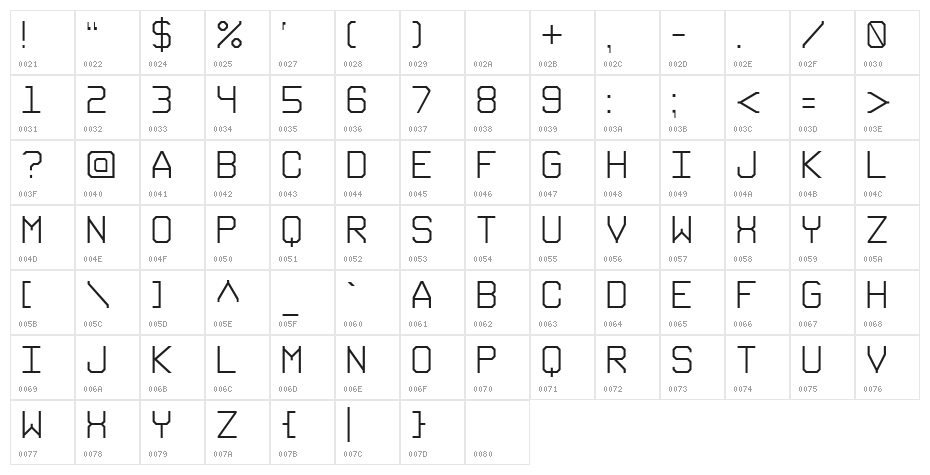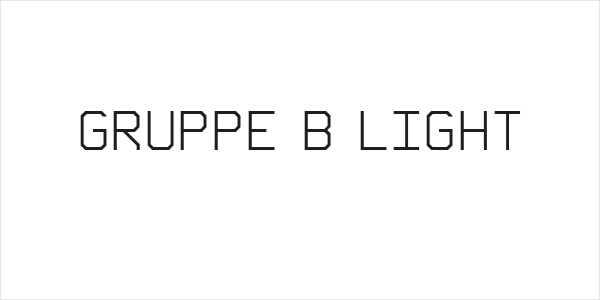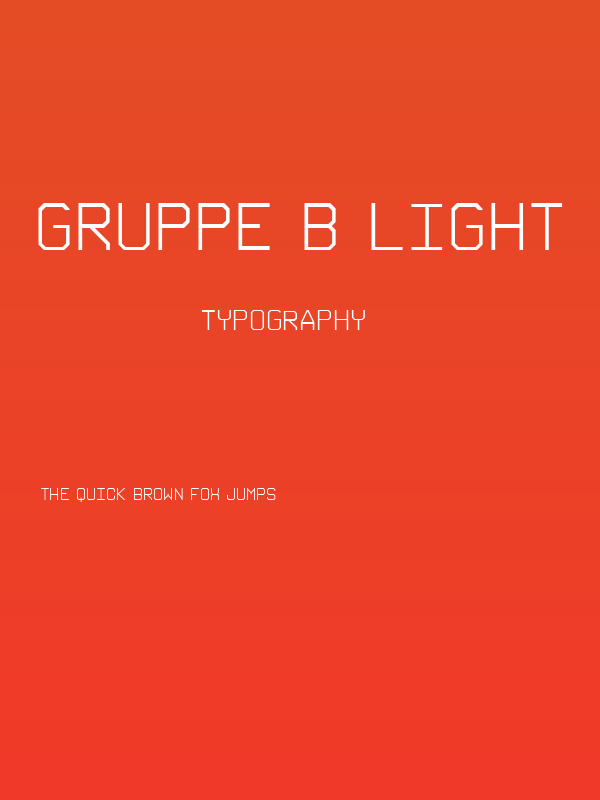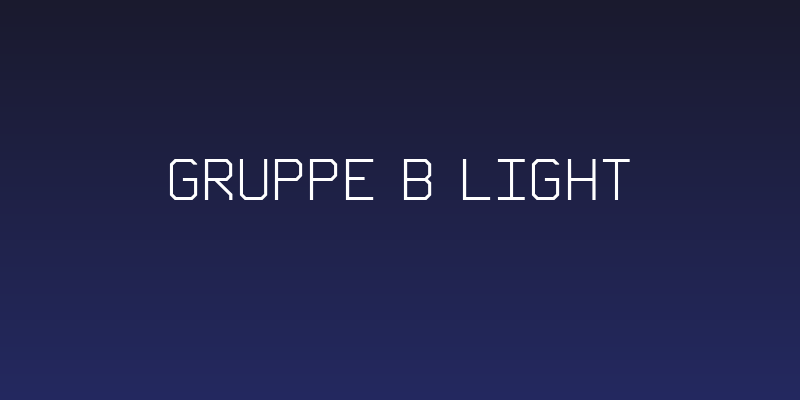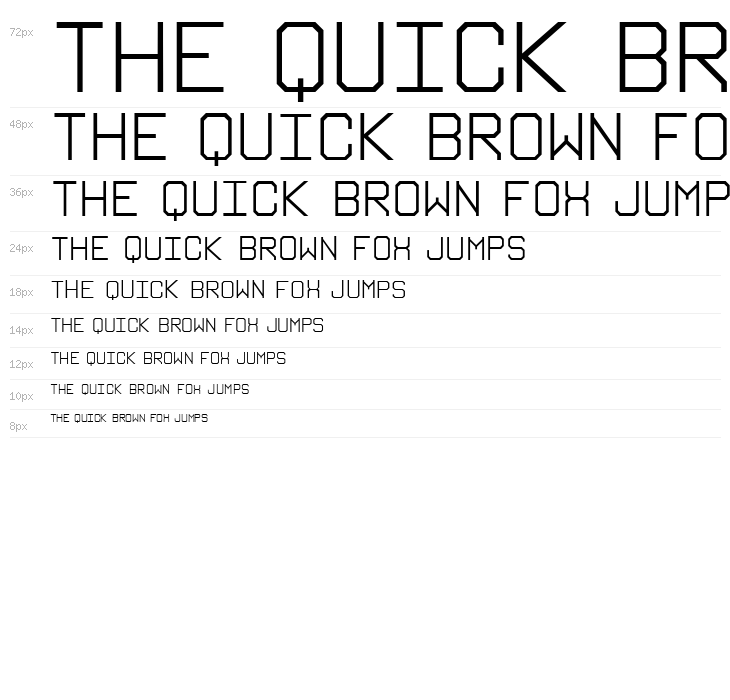
Gruppe B Light Font
Gruppe B Light Description
This font features a geometric and technical design, characterized by its clean lines and angular shapes. The uppercase and lowercase letters maintain a consistent height, contributing to a uniform appearance. The numerals and special characters follow the same structured design, enhancing readability and modernity. The font's minimalistic and precise style makes it suitable for projects that require a contemporary and technical look. Its clarity and simplicity are ideal for digital interfaces, technical documents, and branding that seeks a futuristic or industrial aesthetic.
| Use Case | Headlines, Logos, Digital interfaces |
| Proposed Projects | Ideal for digital interfaces, technical documents, branding, and futuristic designs. |